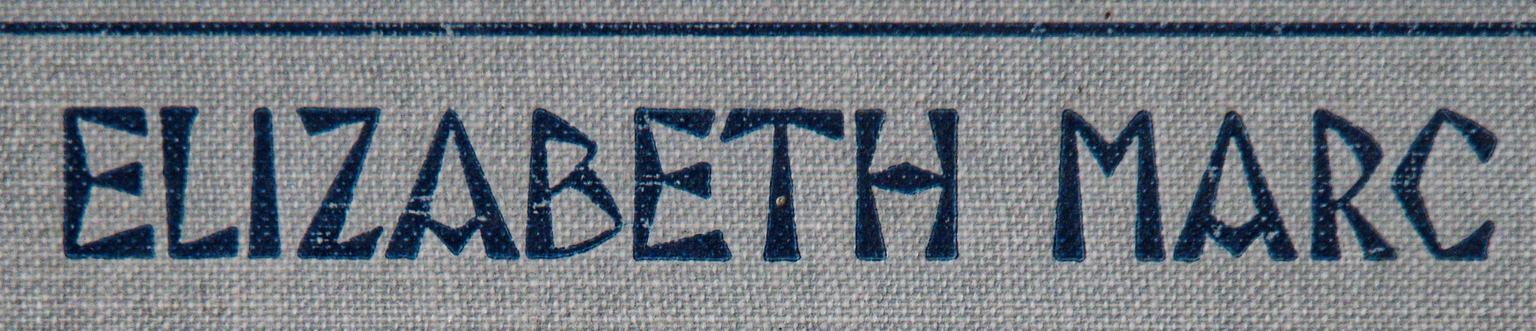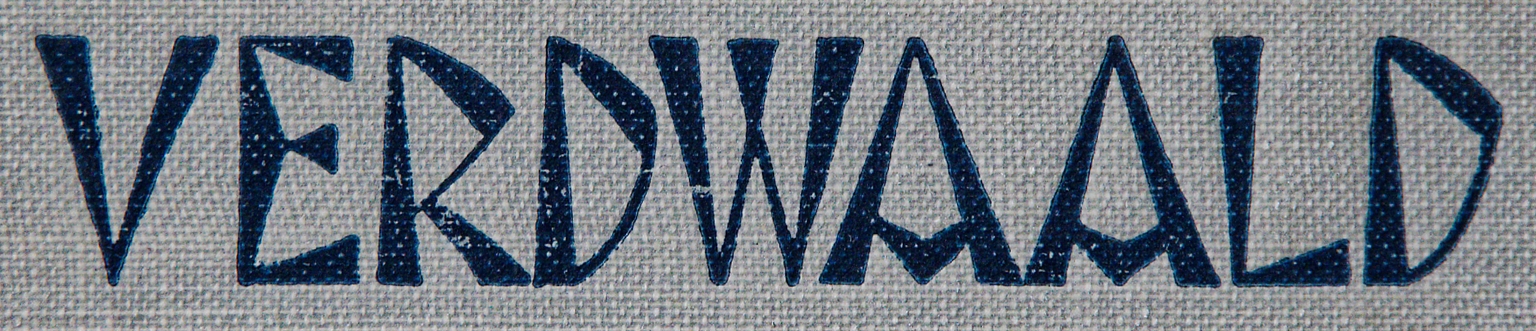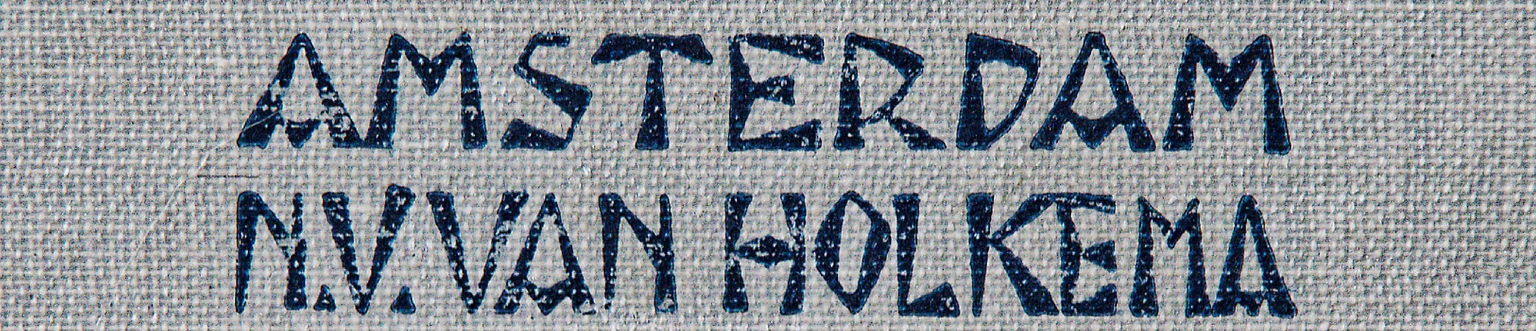
Summerian
Summerian is an expressionist display typeface designed by Mathis Payet, born from a personal exploration of cuneiform-inspired letterforms. The resulting font reinterprets these primal letterforms through a modern, experimental lens—blending historical reference with abstract, expressive energy.
This is a typeface that bears a resemblance to alphabet designs produced by artists associated with 20th-century German Expressionism, perfect for poster design, visual identities, book and recording covers, and cultural projects that embrace bold form and emotional intensity.
Payet’s design is a tribute to the visual power of early writing systems and their ability to transcend time. With its fractured geometry and raw elegance, Summerian invites designers to explore new narrative possibilities through letterforms that seem carved rather than drawn.
Designer
Mathis Payet